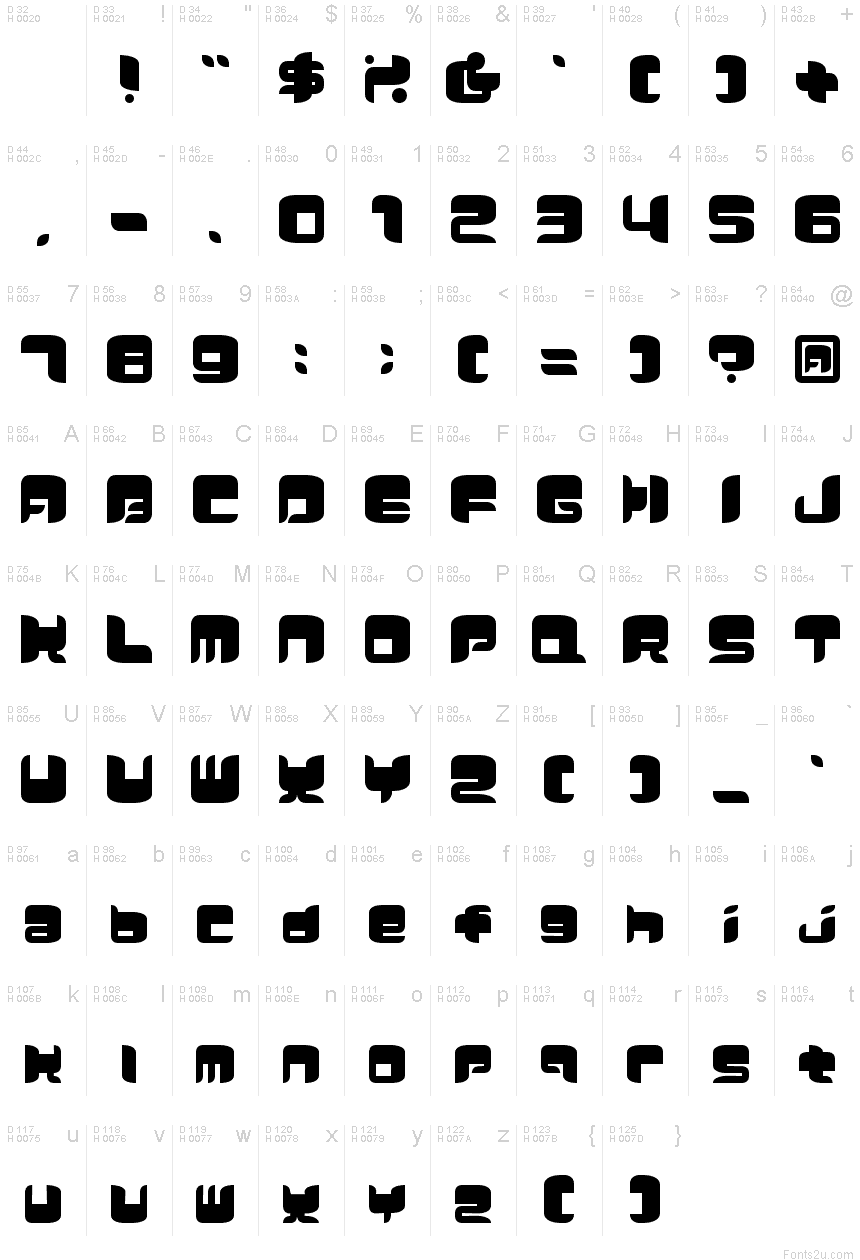
Comicker
Comicker font by Cosmic Cosmos is a free groovy retro display typeface that feels ripped straight from a bold comic book cover. Its chunky, rounded shapes and tight spacing create a dense, inky block of color, while the squared counters and playful curves keep it lighthearted rather than heavy. Letters look like they’ve been bubble-lettered with a thick marker, giving headlines a punchy, tactile presence that jumps off the screen or page.
Using Comicker, titles instantly gain a fun, narrative energy that shines on comic logos, kids’ book covers, gaming graphics, stickers, merch, and bold social posts. This free font works beautifully when set large, letting those solid forms and carved-out spaces do the talking; pair it with a clean geometric sans in smaller text to keep everything readable while Comicker handles the attitude.